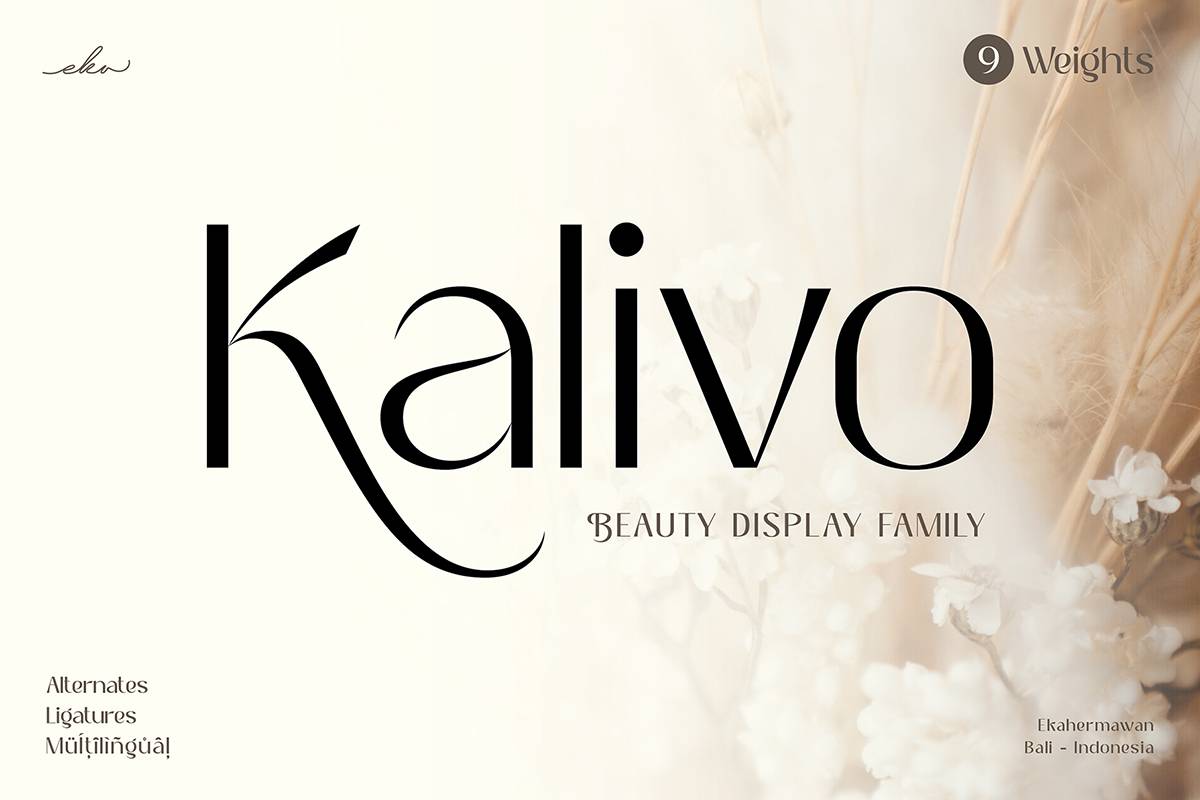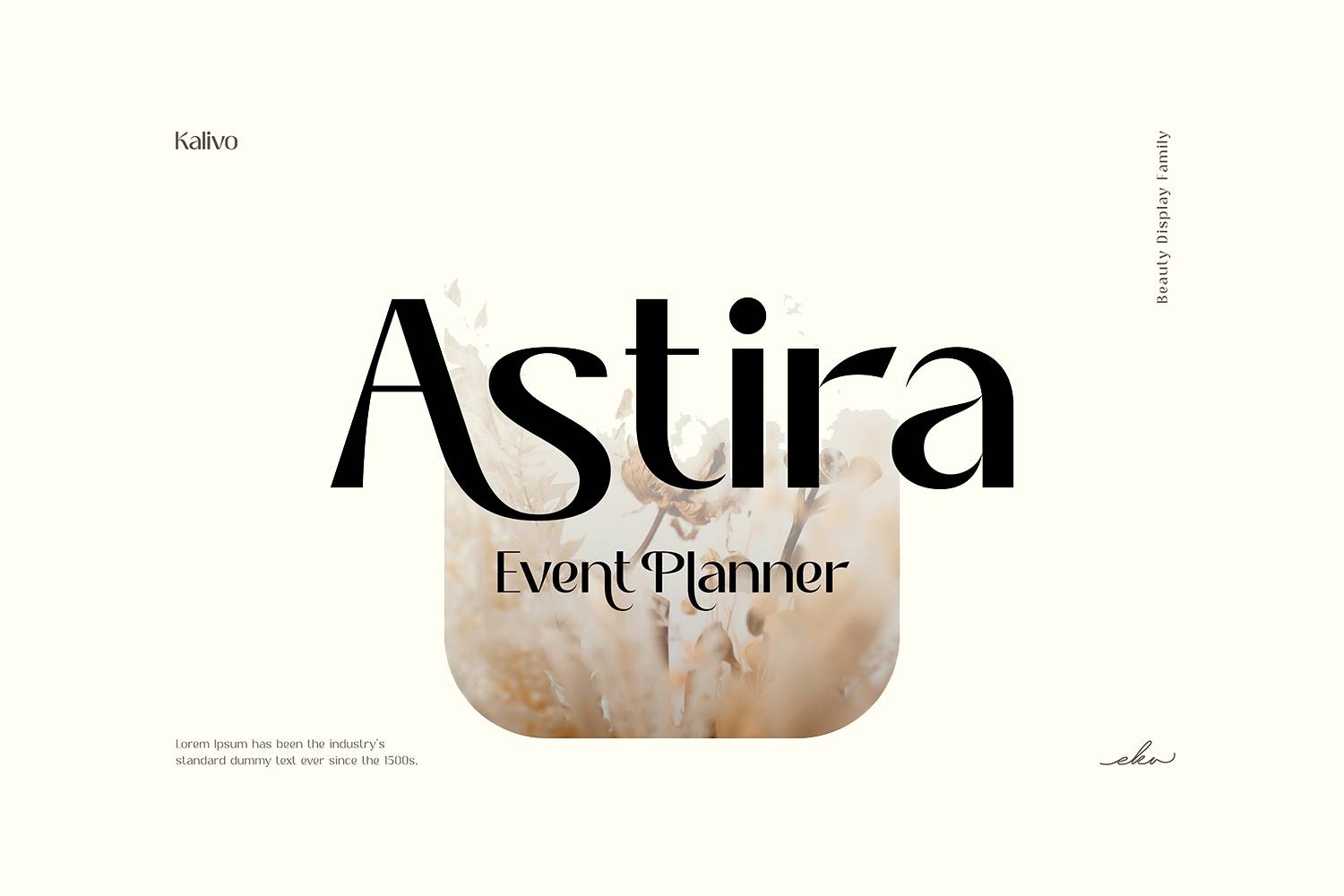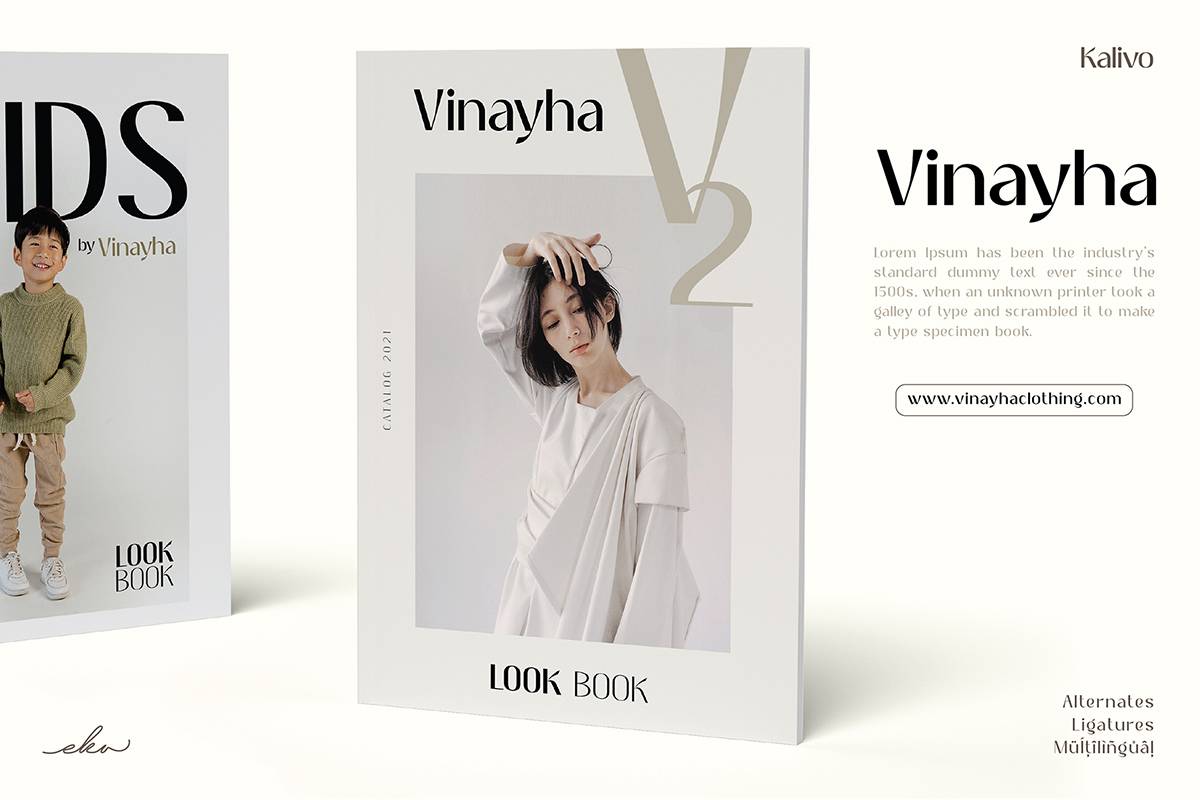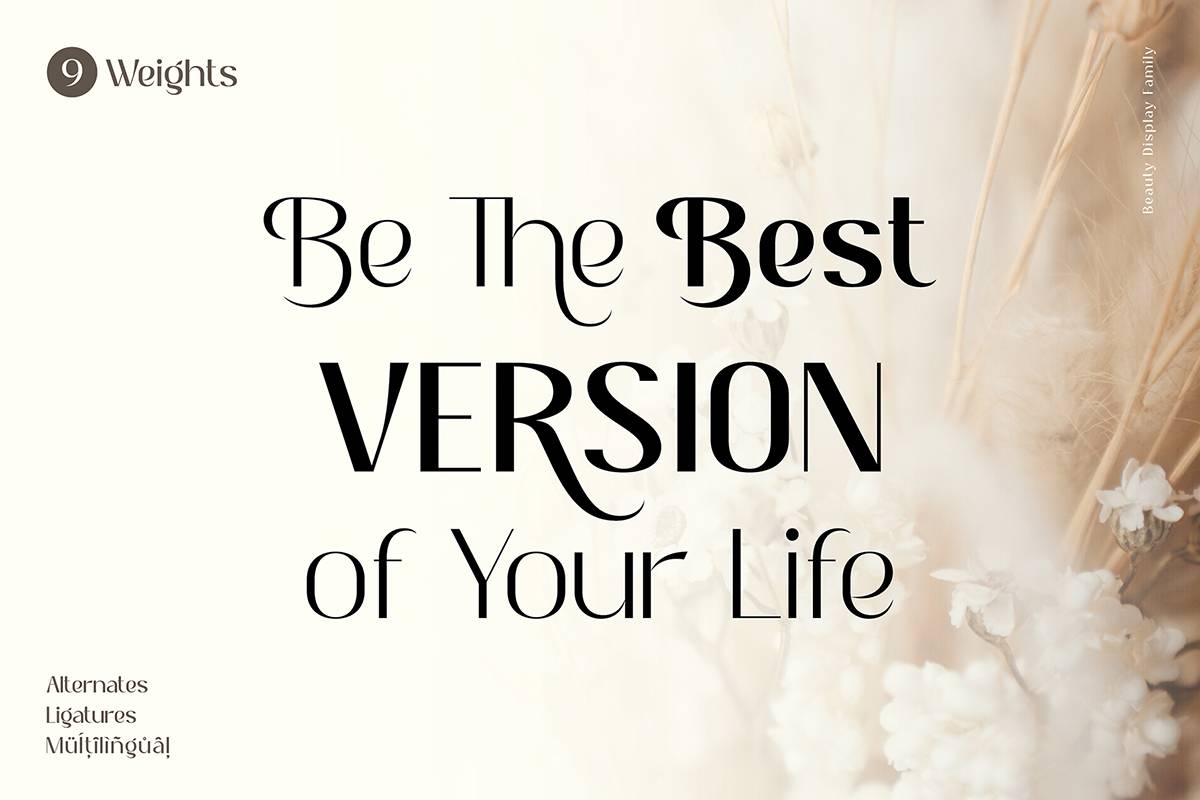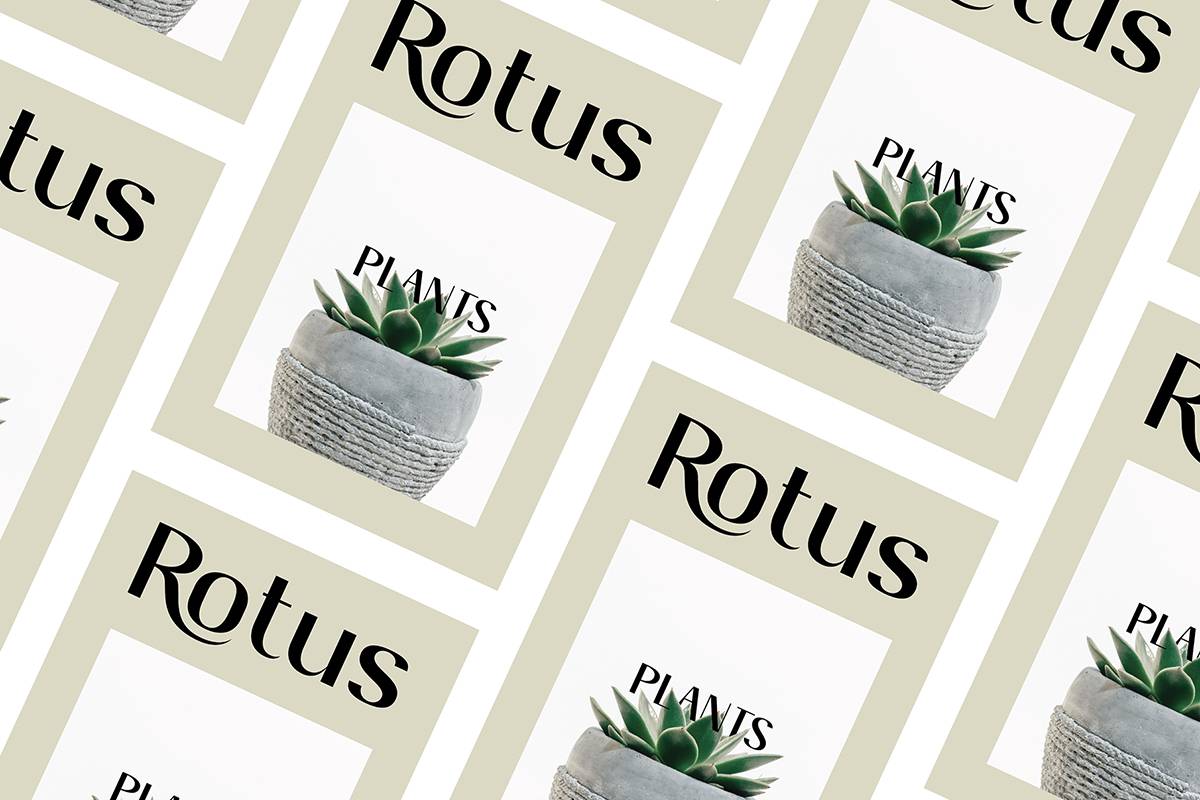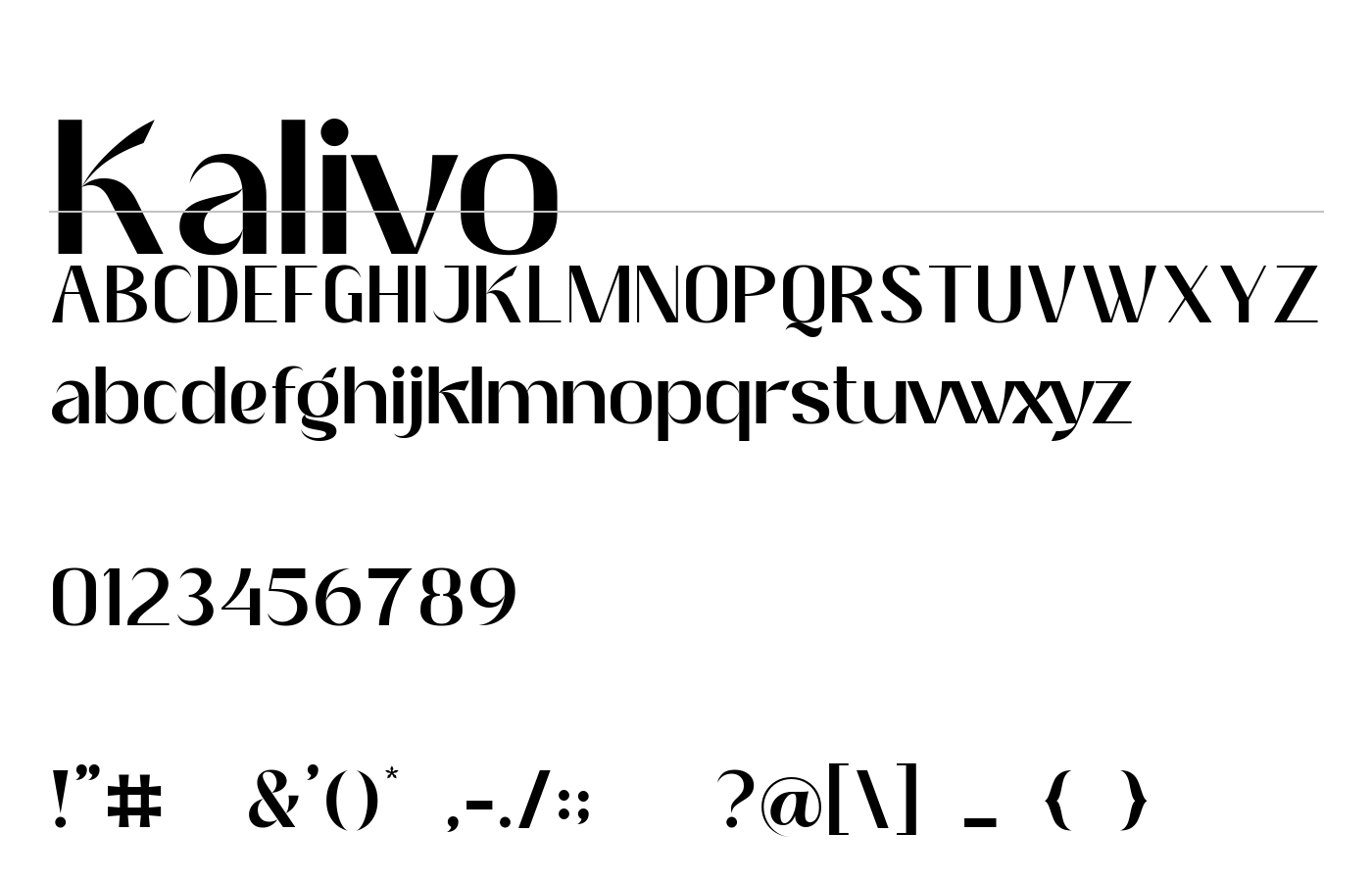
Kalivo is a stylish serif font with a modern and elegant feel, characterized by high contrast between thick and thin strokes and unique, artistic letterforms. Its tall, narrow structure and delicate serifs create a sophisticated look that works beautifully for luxury branding, editorial headlines, and fashion-related designs. This font combines classic refinement with contemporary flair, making it ideal for projects seeking a chic and distinctive appearance.
Kalivo Font
About Kalivo Font
| Font family | Kalivo Font |
| Designer | Putu Eka Hermawan |